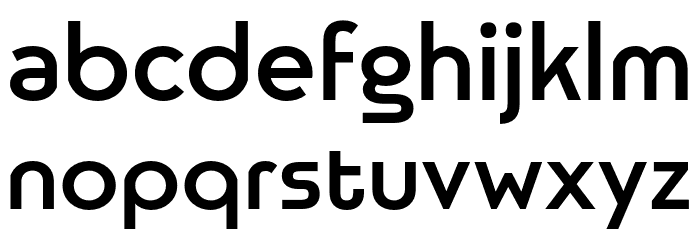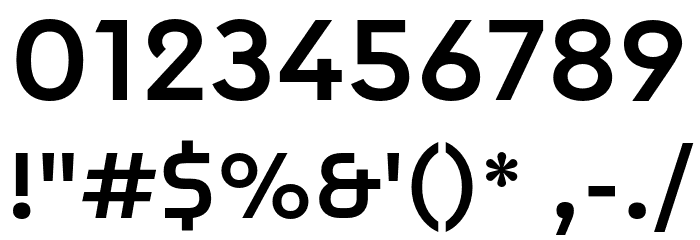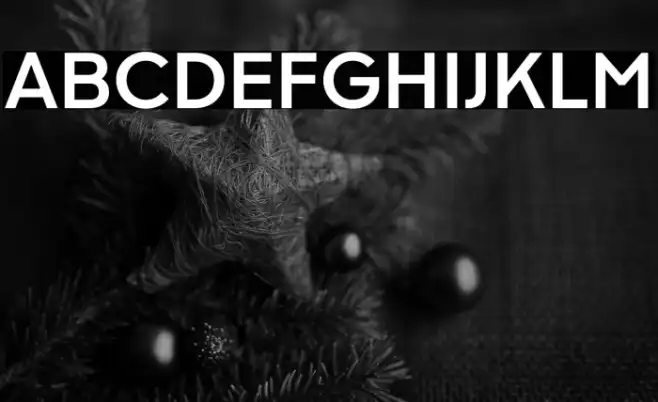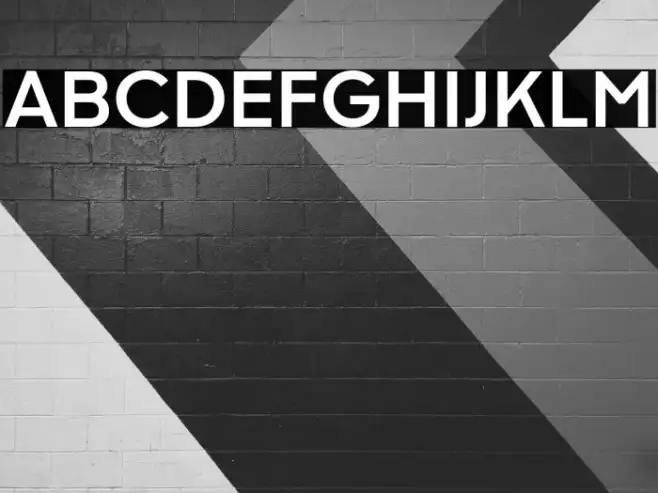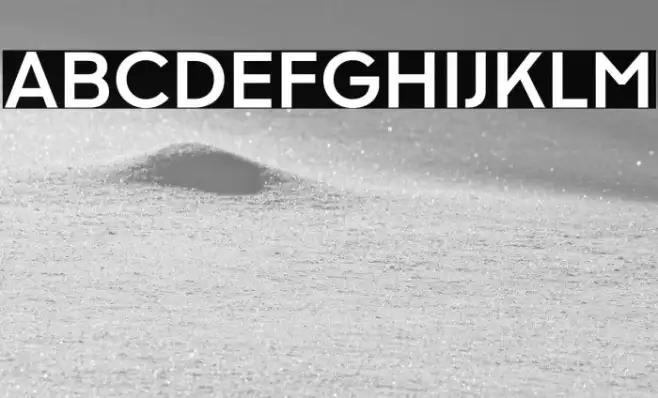
Nineteenth Font
This font exhibits a clean and modern sans-serif style, characterized by its geometric shapes and uniform stroke widths. The uppercase letters are bold and assertive, while the lowercase letters maintain a consistent roundness that adds a friendly touch. The numerals are clear and easy to read, making them suitable for various applications. Special characters are well-defined, ensuring versatility in design projects. The overall appearance is sleek and professional, ideal for contemporary branding and digital interfaces.
- Font: Nineteenth
- Proposed Projects: Ideal for branding, digital interfaces, advertising, and editorial design.
- Category: Sans-Serif